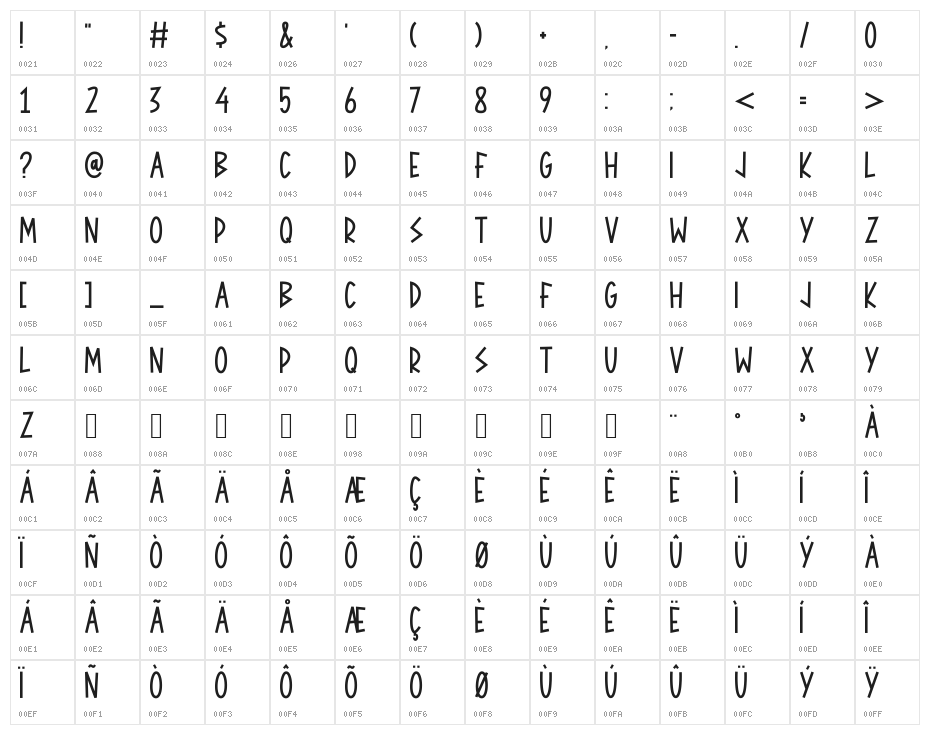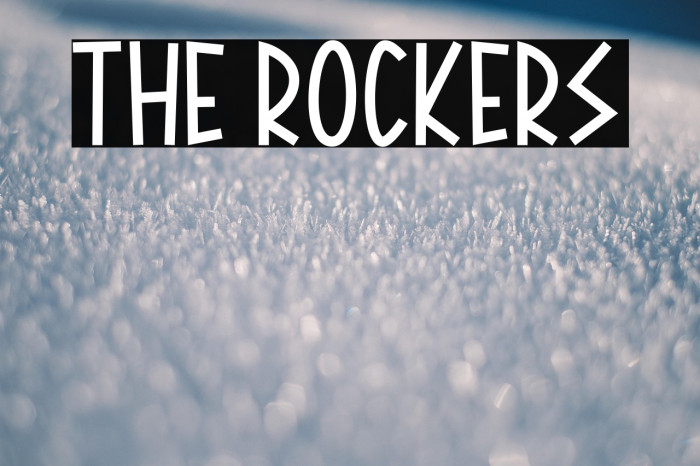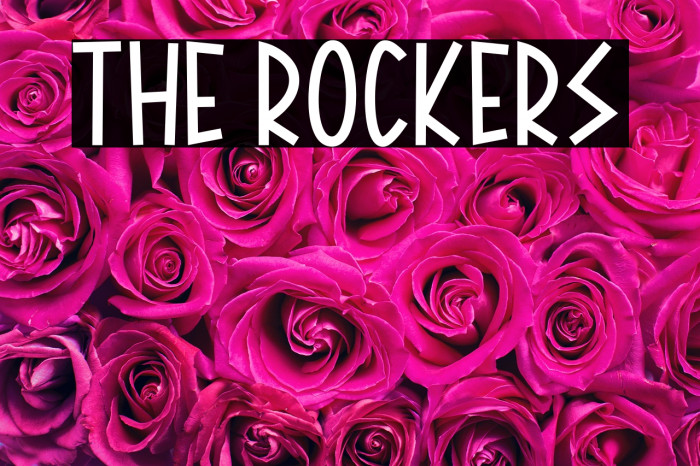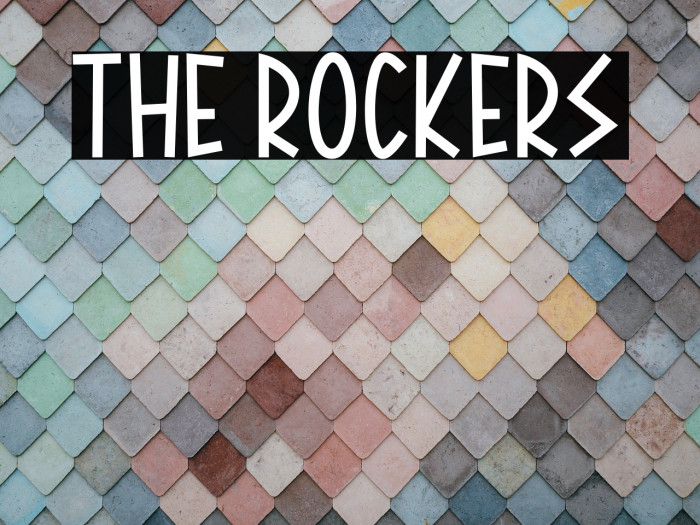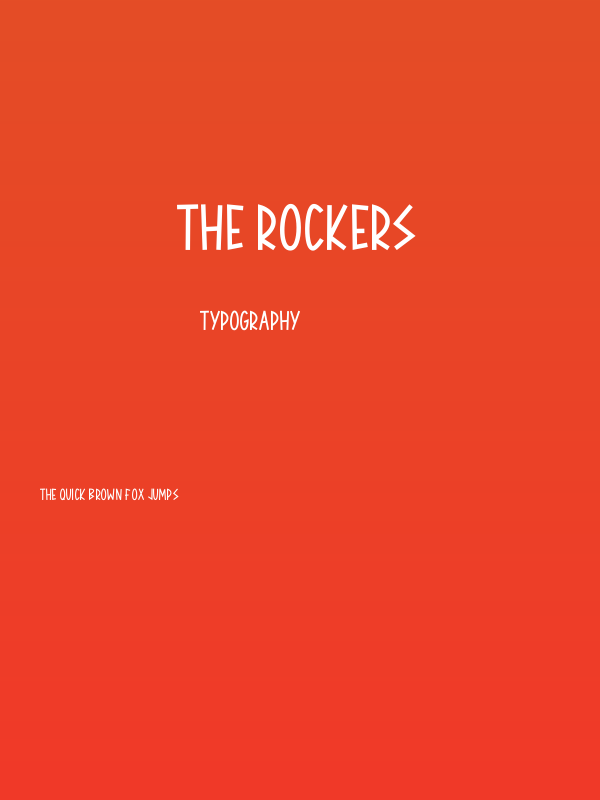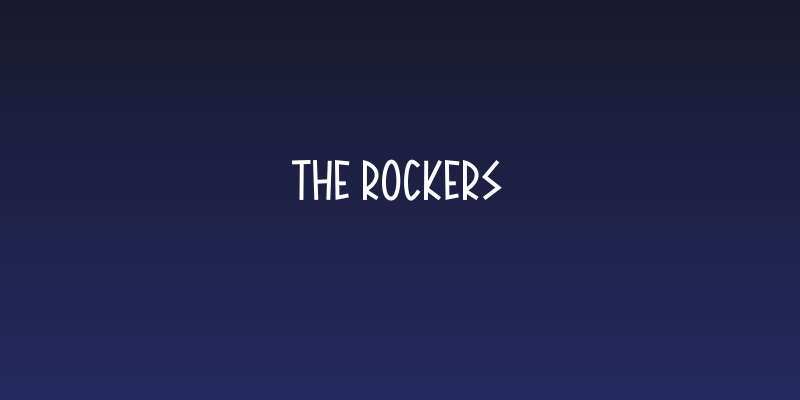
The Rockers Font
The Rockers Description
This font features a bold and playful design with a hand-drawn aesthetic. The letters are slightly irregular, giving them a dynamic and energetic feel. The uppercase and lowercase characters maintain a consistent style, with sharp angles and a sense of movement. The numerals and special characters follow the same playful theme, making the font suitable for creative and informal projects. Its unique style is eye-catching and can add a fun element to any design.
Overall StylePlayful, Energetic
Use CaseHeadlines, Posters, Branding
Proposed ProjectsIdeal for posters, children's books, comic strips, and playful branding projects.